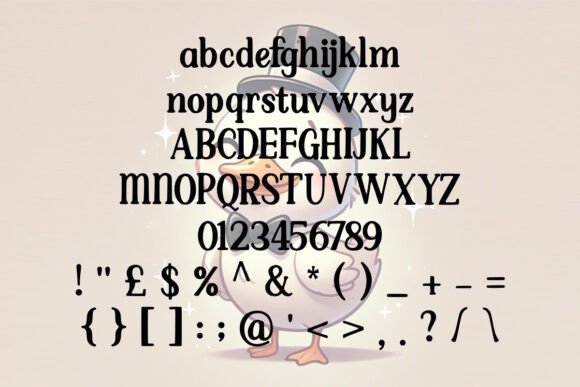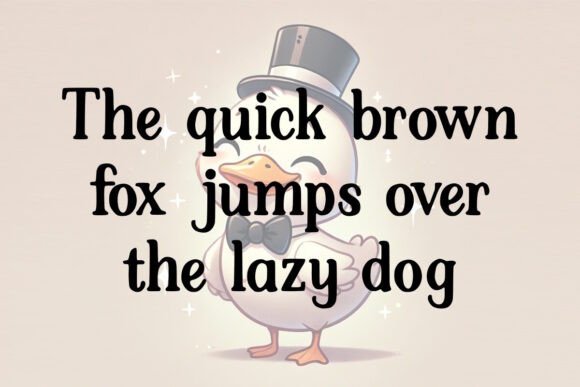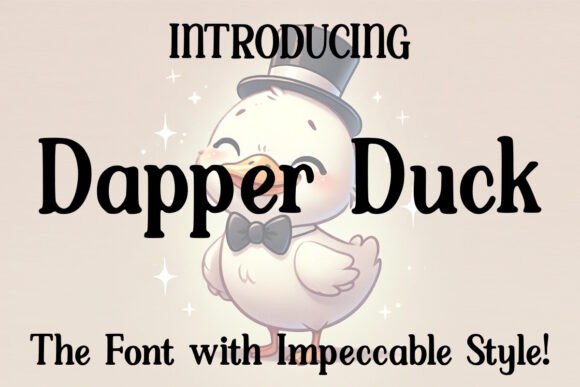
Dapper Duck Font: The Perfect Blend of Sophistication and Whimsy
In the world of typography, few fonts manage to strike a balance between elegance and playfulness. However, Dapper Duck Font is an exception, bringing a unique charm to the table that is hard to resist. With its refined serifs and smooth, classic curves, this distinguished yet playful typeface is sure to capture your heart and elevate your design projects to new heights.
The Characteristics of Dapper Duck Font
Dapper Duck Font boasts a range of characteristics that make it an ideal choice for designers and crafters. Its refined serifs add a touch of sophistication, while its smooth, classic curves bring a sense of timelessness to any project. The font’s overall design is both elegant and approachable, making it perfect for a wide range of applications, from formal invitations to playful branding and elegant printables.
What Makes Dapper Duck Font Stand Out?
So, what sets Dapper Duck Font apart from other typefaces? Here are a few key features that make it a standout choice:
- Refined Serifs: The font’s serifs are carefully crafted to add a touch of sophistication and elegance to any project.
- Smooth, Classic Curves: The font’s curves are smooth and classic, giving it a timeless feel that never goes out of style.
- Playful Touch: Despite its elegant design, Dapper Duck Font has a playful touch that makes it perfect for projects that require a bit of whimsy.
- Versatility: This font is incredibly versatile, making it suitable for a wide range of applications, from formal to informal.
Dapper Duck Font is a dream come true for designers and crafters. Whether you’re working on a branding project, designing invitations, or creating elegant printables, this font is sure to impress. Its unique blend of sophistication and playfulness makes it an ideal choice for:
- Invitations: Add a touch of elegance and whimsy to your invitations with Dapper Duck Font.
- Branding: Use Dapper Duck Font to create a unique and memorable brand identity.
- Elegant Printables: Add a touch of sophistication to your printables, such as planners, journals, and more.
Tips for Using Dapper Duck Font
- Experiment with Sizes: Dapper Duck Font looks great in a range of sizes, from large headings to smaller body text.
In conclusion, Dapper Duck Font is a truly unique and versatile typeface that is sure to capture the hearts of designers and crafters. Its refined serifs, smooth classic curves, and playful touch make it perfect for a wide range of applications. Whether you’re designing invitations, branding, or elegant printables, Dapper Duck Font is sure to bring a touch of sophistication and whimsy to your projects. So why not give it a try and see for yourself why Dapper Duck Font is quickly becoming a favorite among designers and crafters?
Get Ready to Fall in Love with Dapper Duck Font